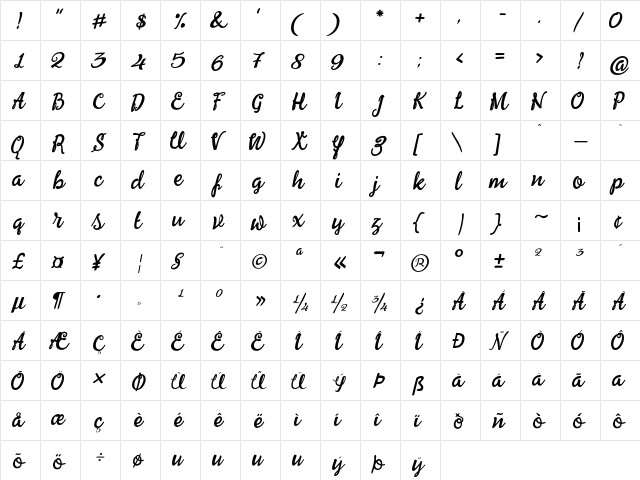
Winstone Regular
Design Context for Winstone Typeface
Winstone is a composed and adaptable typeface that performs quietly and consistently across a wide range of design contexts.